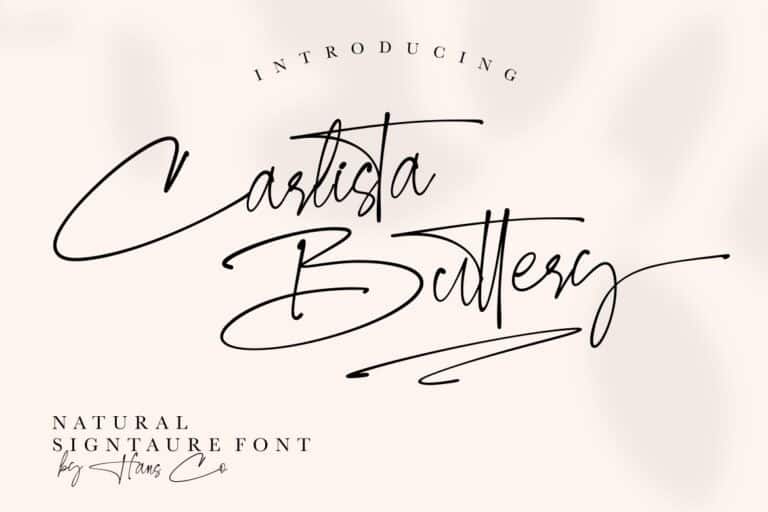
Carlista Buttery Font
Carlista Buttery Script Font with a handmade calligraphy style, decorative characters and a dancing baseline! It comes with an elegant and modern style which is perfect to make any design stand out! This font is perfect for branding, wedding invites, magazines, mugs, business cards, quotes, posters, and more.